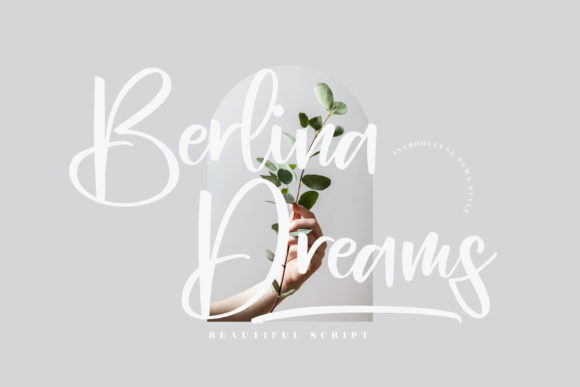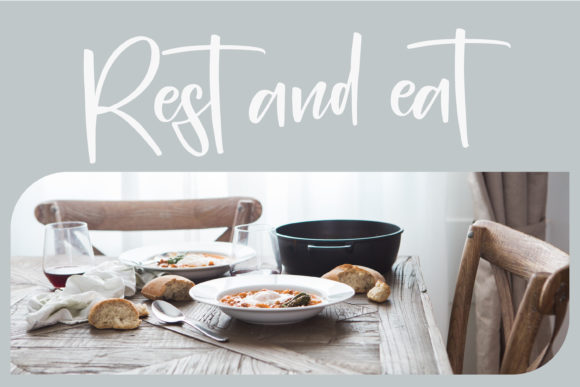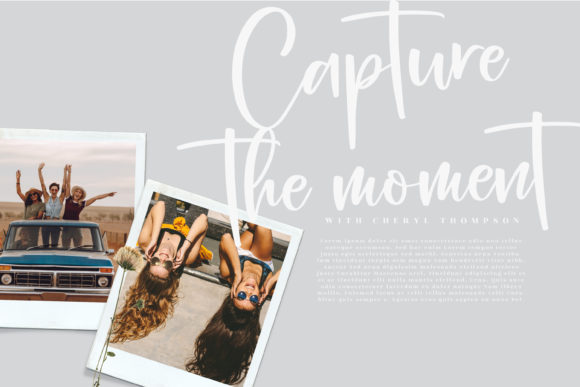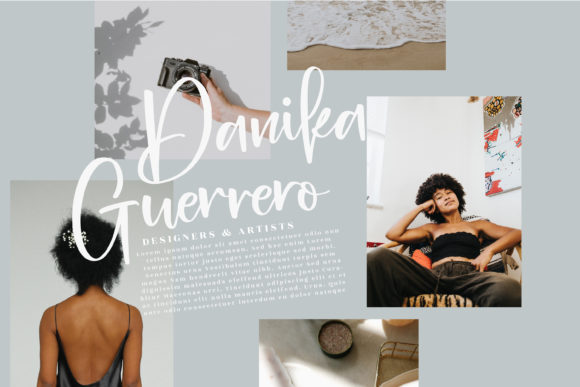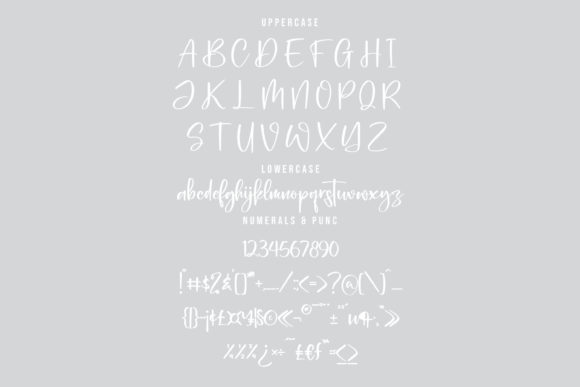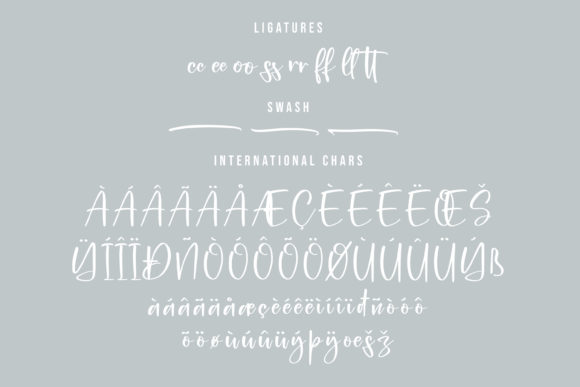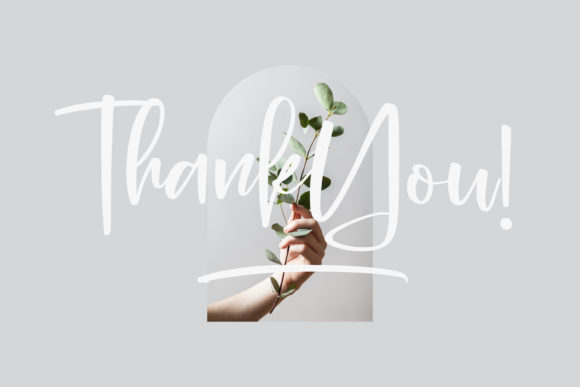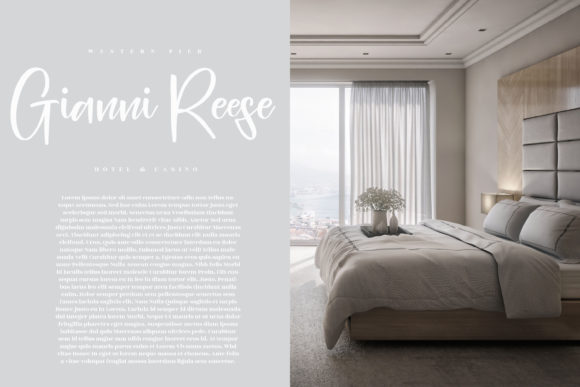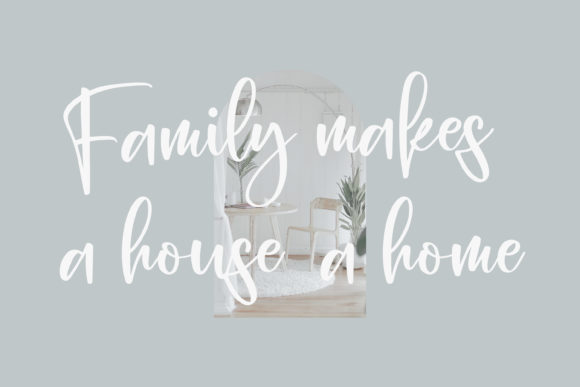
Berlina Dreams Font
About Berlina Dreams Font
Berlina Dreams is a delicate, elegant and flowing handwritten font. It has beautiful and well balanced characters and as a result, it matches a wide pool of designs. Fall in love with its incredibly versatile style and use it to create spectacular designs!